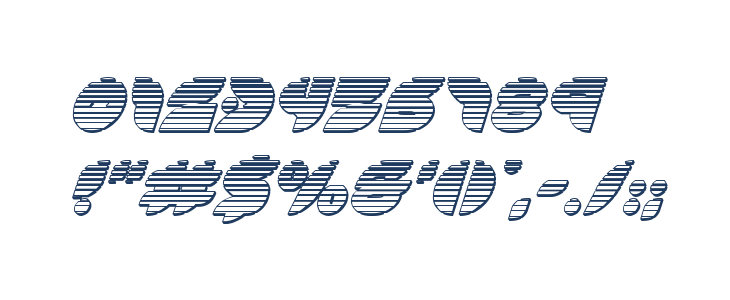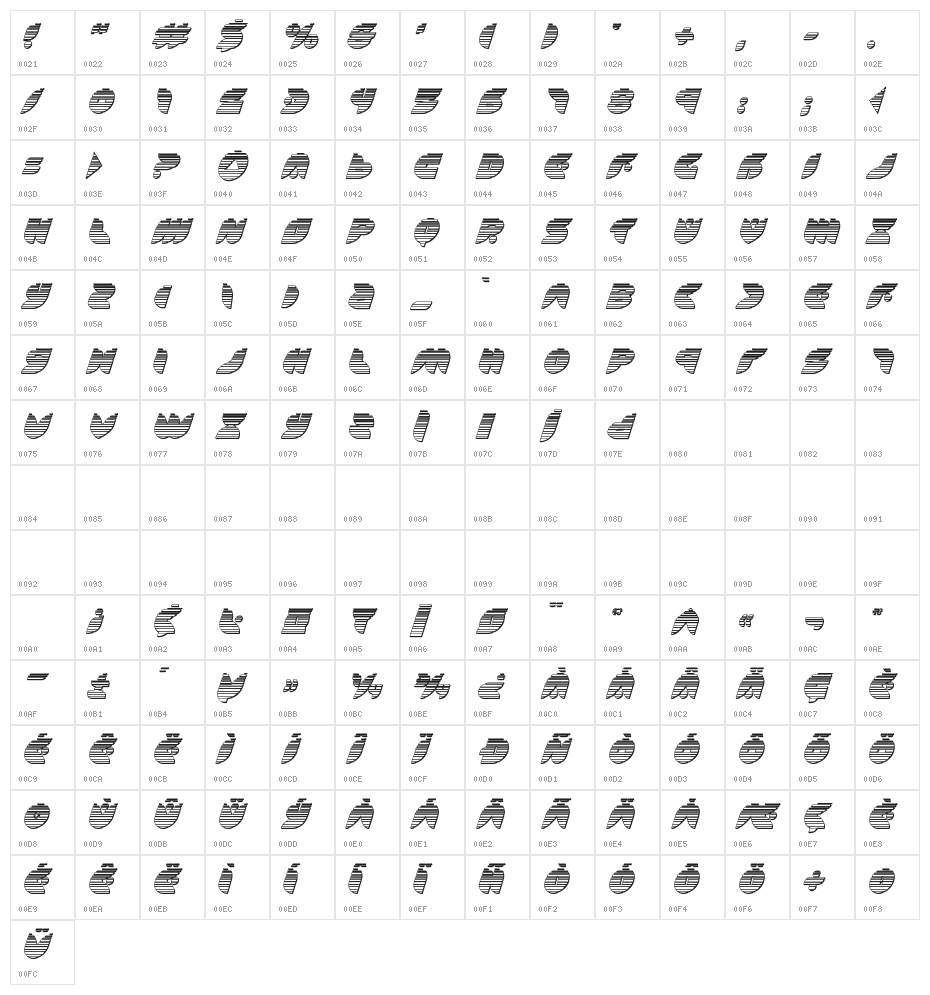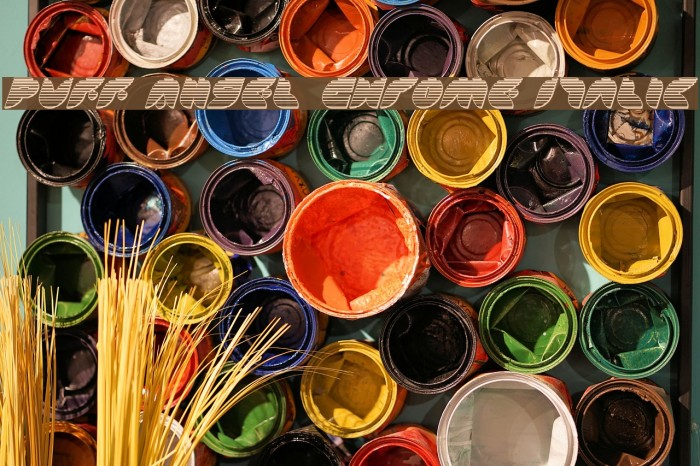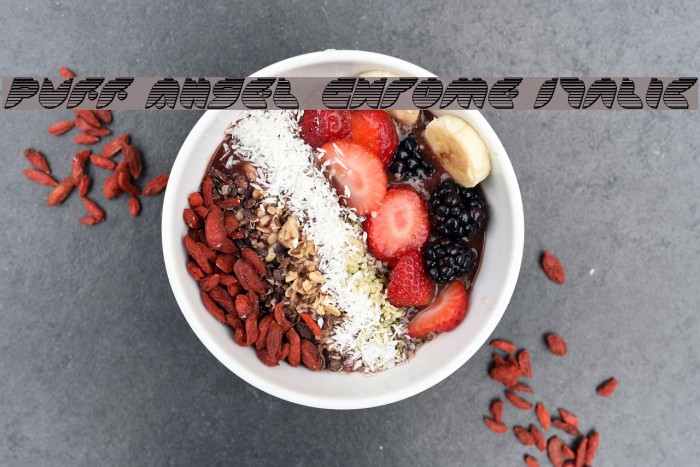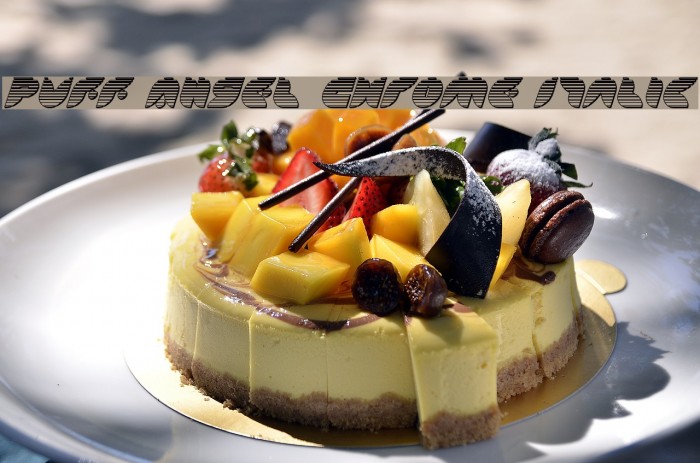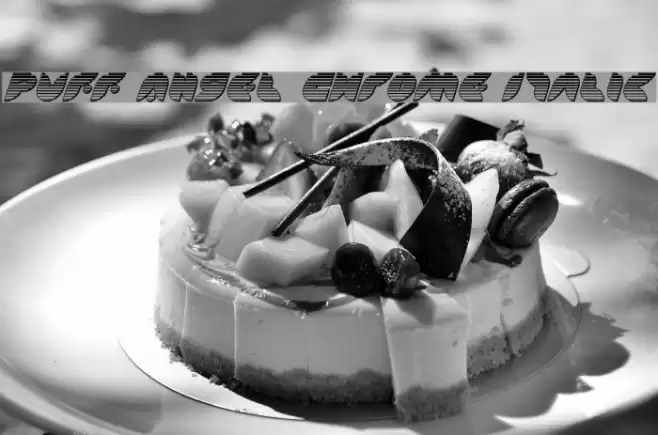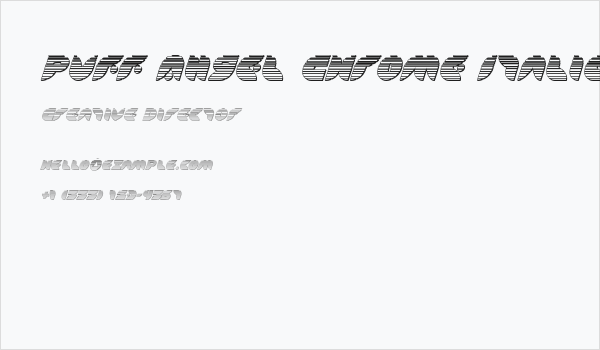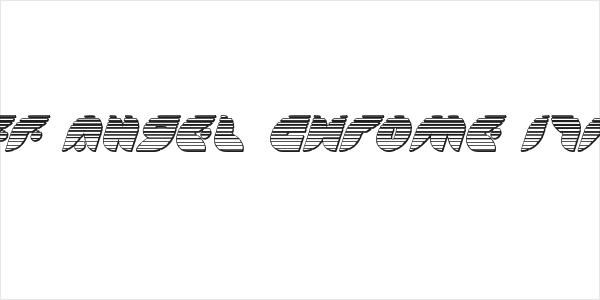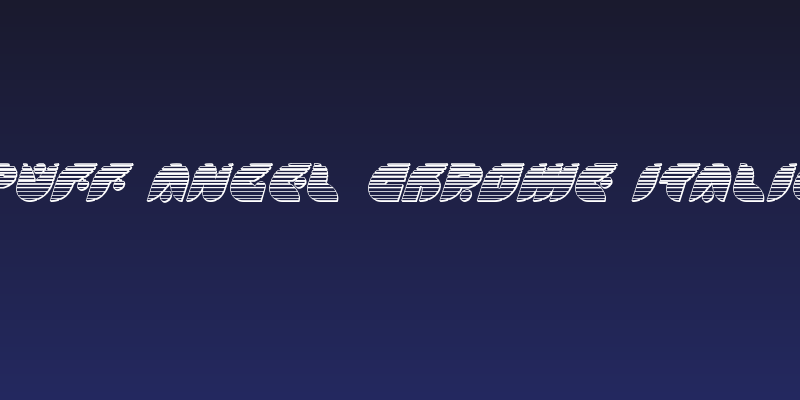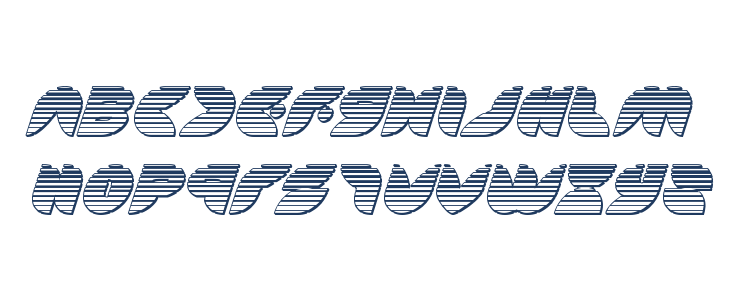
Puff Angel Chrome Italic Font
Puff Angel Chrome Italic Description
This font features a bold, decorative style with a unique striped pattern that gives it a three-dimensional, chrome-like appearance. The characters are italicized, adding a dynamic and forward-leaning aspect to the design. Each letter is composed of horizontal lines that create a sense of movement and depth, making it stand out in any visual composition. The font includes both uppercase and lowercase letters, numbers, and a variety of special characters, all maintaining the same distinctive style. Its bold and eye-catching design makes it suitable for projects that require a strong visual impact.
| Proposed Projects | Ideal for use in futuristic designs, tech-related branding, posters, and any project needing a striking, modern aesthetic. |